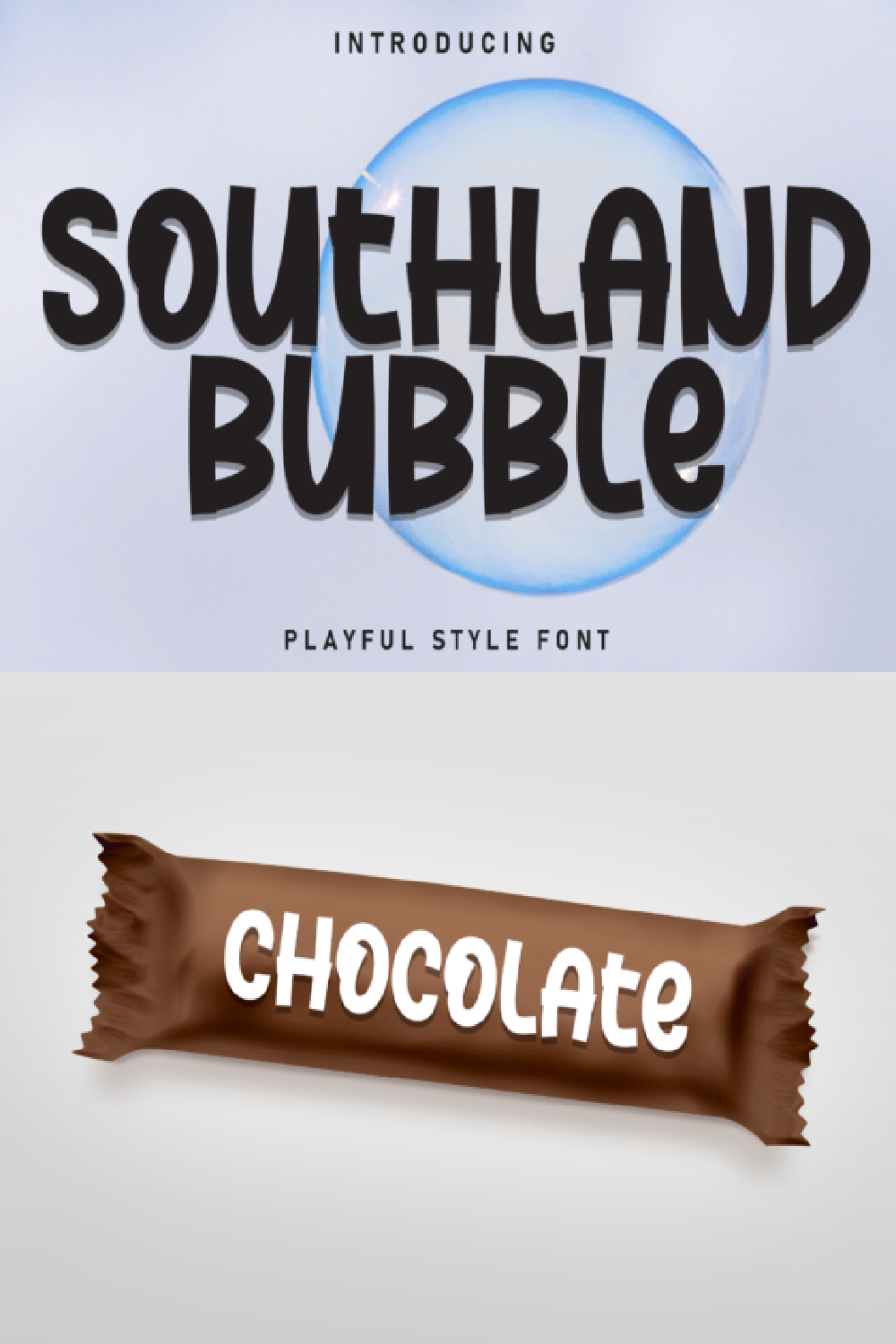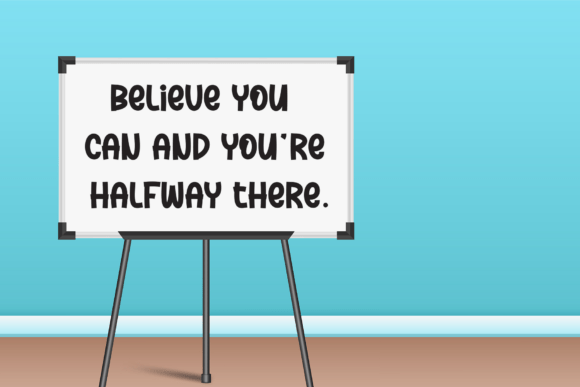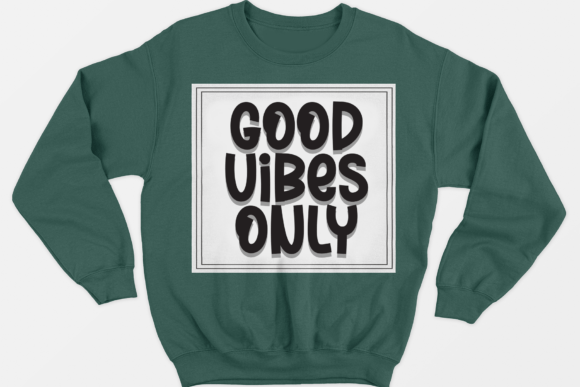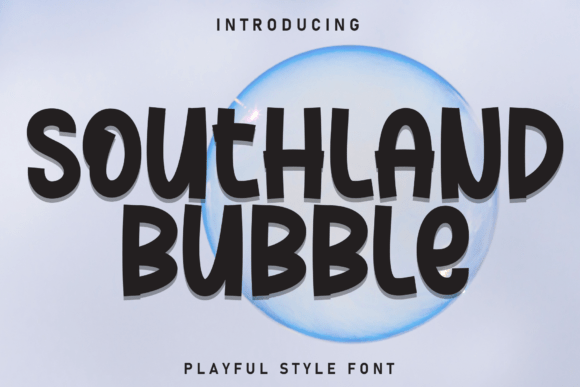
About the Southland Bubble Font
Crafted with precision, the Southland Bubble Font is ready to bring your ideas to life. Southland Bubble is a casual and neat display font that radiates a fresh, friendly vibe. With clean lines and a relaxed structure, it’s perfect for packaging, posters, and social media graphics. The approachable design adds charm and clarity to projects while maintaining a polished appearance.